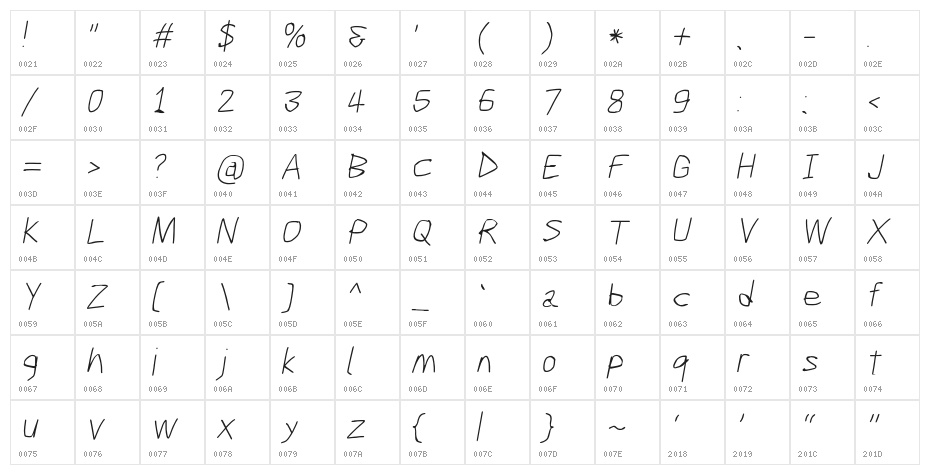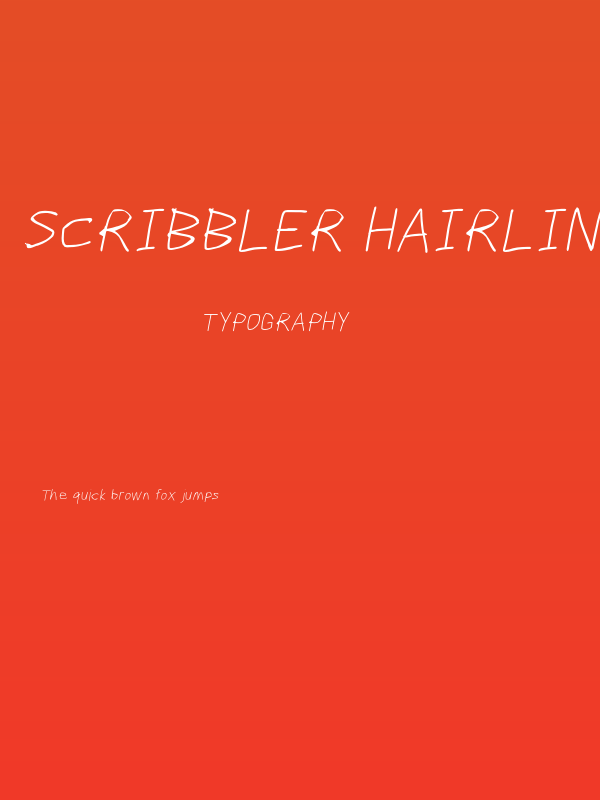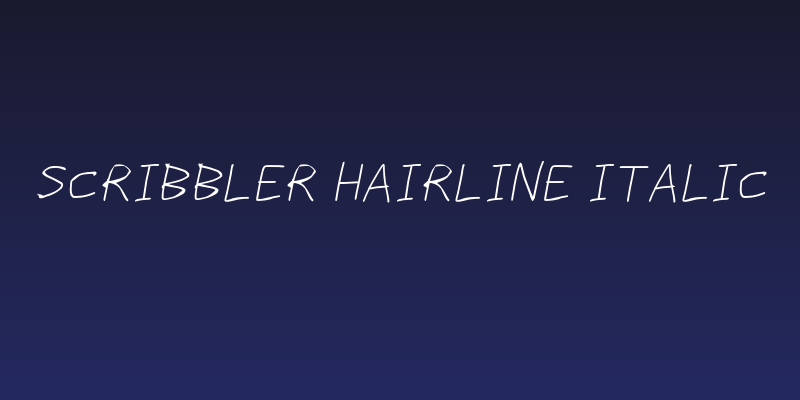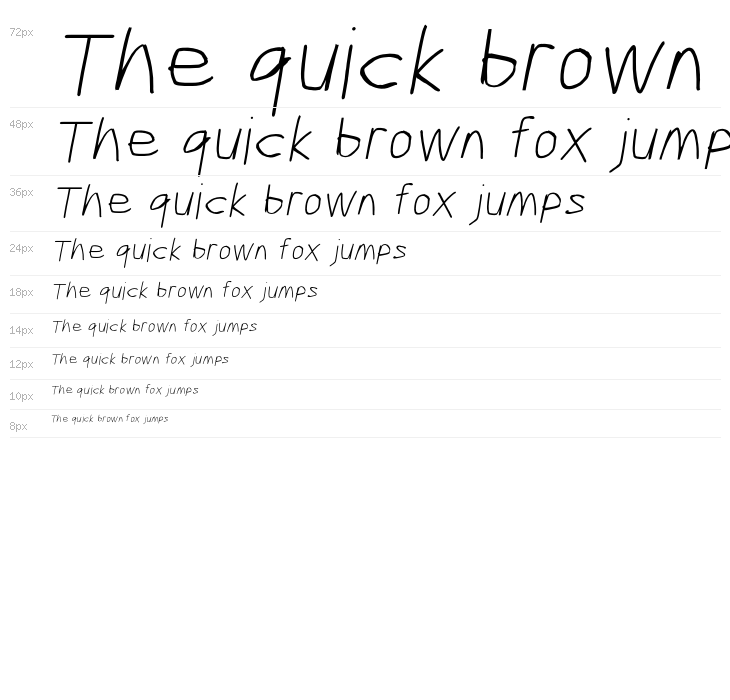
Scribbler Hairline Italic Font
Scribbler Hairline Italic Description
This font features a playful and informal handwritten style, characterized by its thin, hairline strokes and slightly italicized form. The letters have a casual, freeform appearance, with varying angles and curves that give it a dynamic and lively feel. The uppercase and lowercase letters maintain a consistent style, with a slight slant that adds to the informal aesthetic. Numbers and special characters are designed to match the overall handwritten look, making it suitable for projects that require a personal touch. The font's thin strokes and irregular shapes convey a sense of spontaneity and creativity.
| Proposed Projects | Ideal for personal notes, creative projects, informal invitations, and playful branding. |